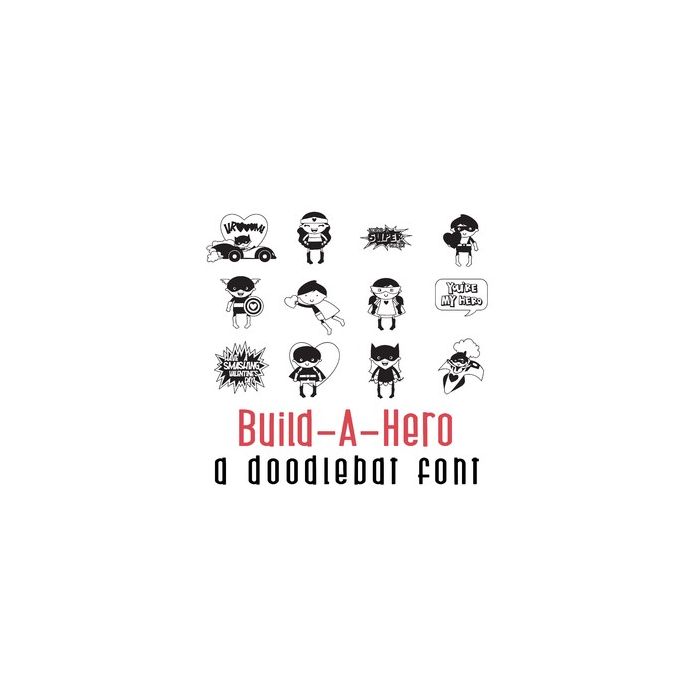
This fun doodlebat font features 31 hero-themed valentine images. Perfect for cards, crafts, gifts, decor, scrapbook pages, planner stickers, and more!